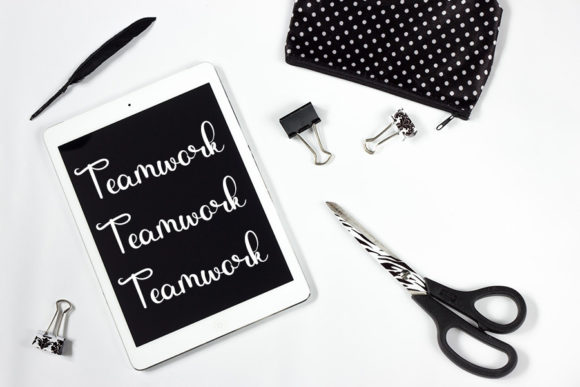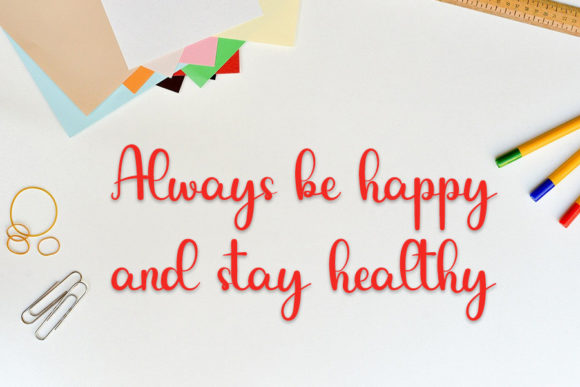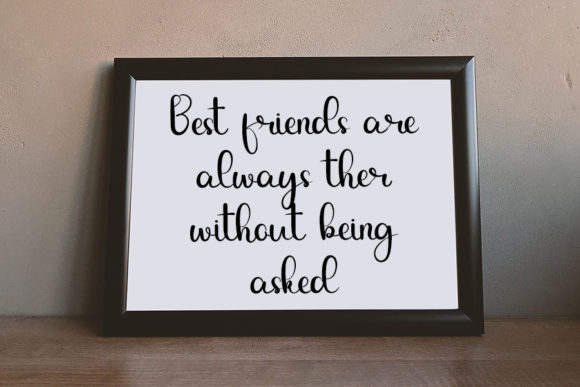
Introduction to Besties Forever Font
Besties Forever is a stylish handwritten font with a contemporary atmosphere and impeccable form, inspired by a timeless classic calligraphy.
Not too thin and not too thick, balanced and varied, this font was designed to enhance the beauty of your projects .
Key Features of Besties Forever Font
Why Choose Besties Forever Font?
Besties Forever Font offers exceptional quality and versatility, making it a valuable addition to your design toolkit. Whether you’re creating for personal projects or commercial use, Besties Forever Font delivers professional results.